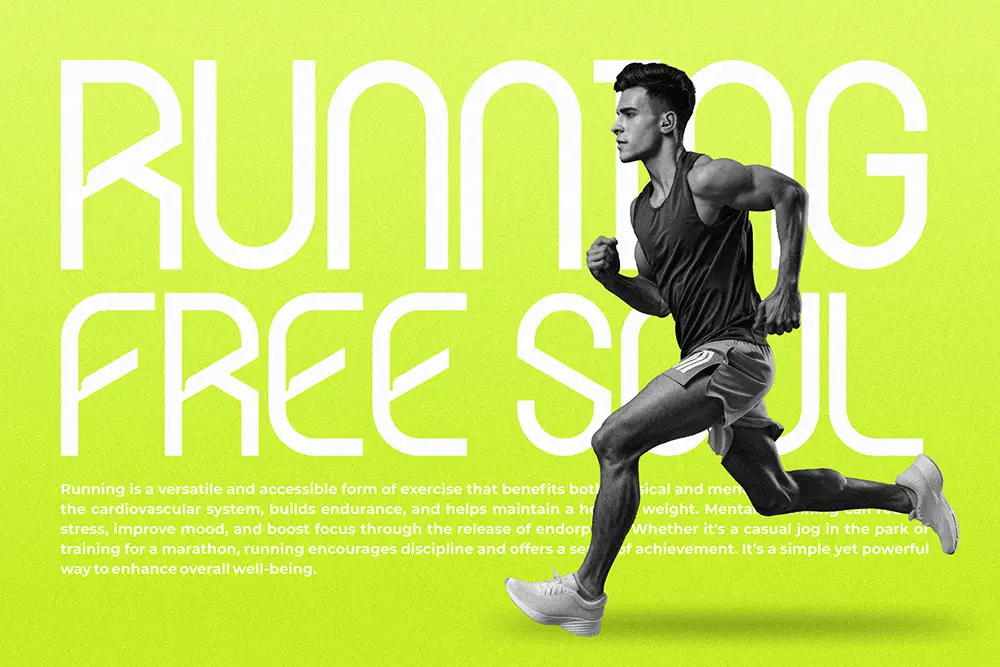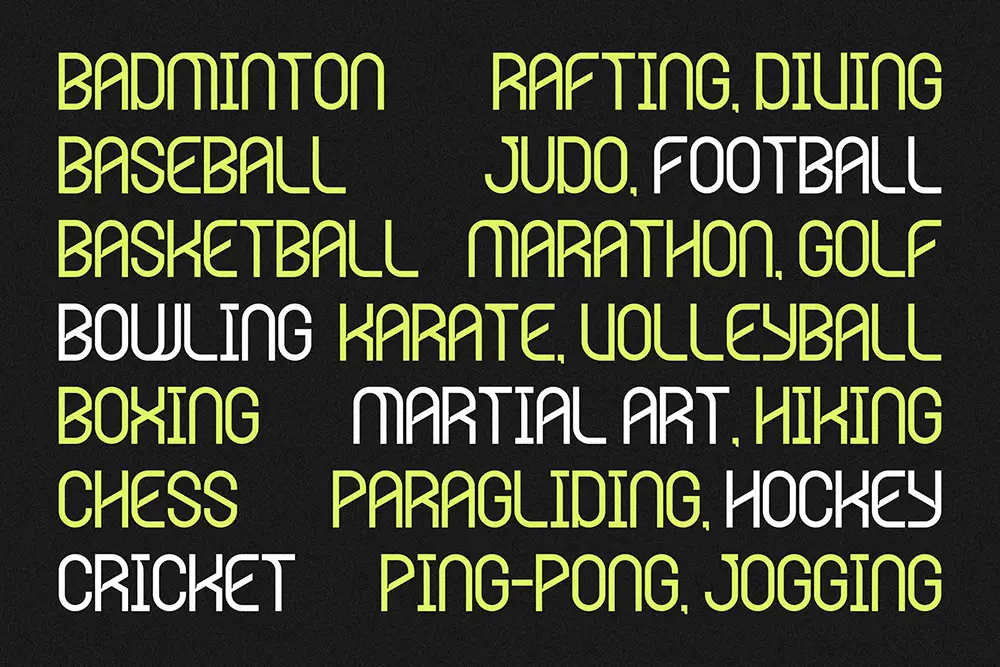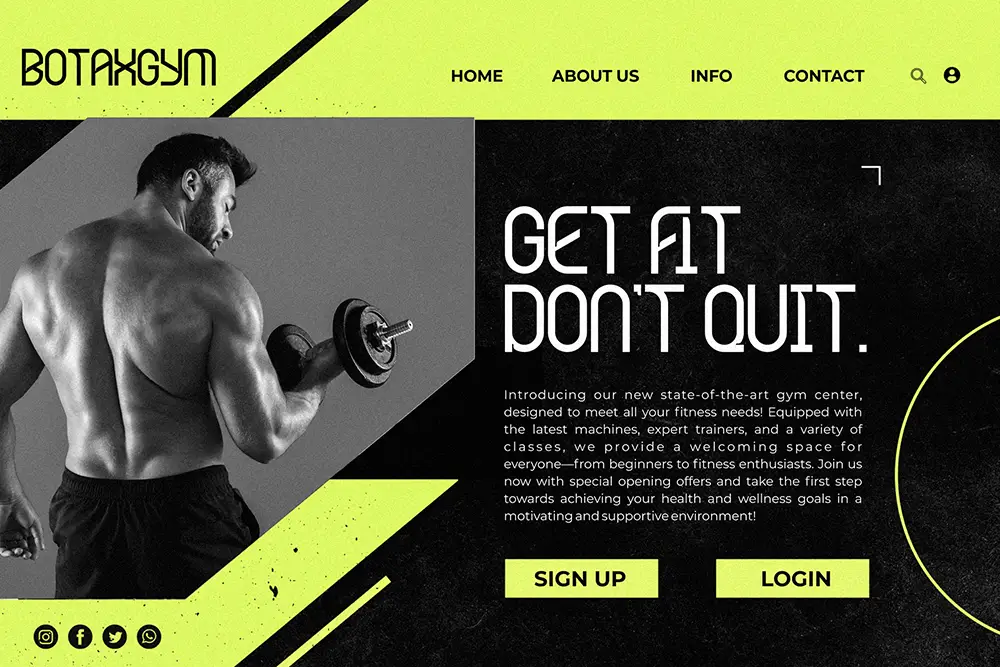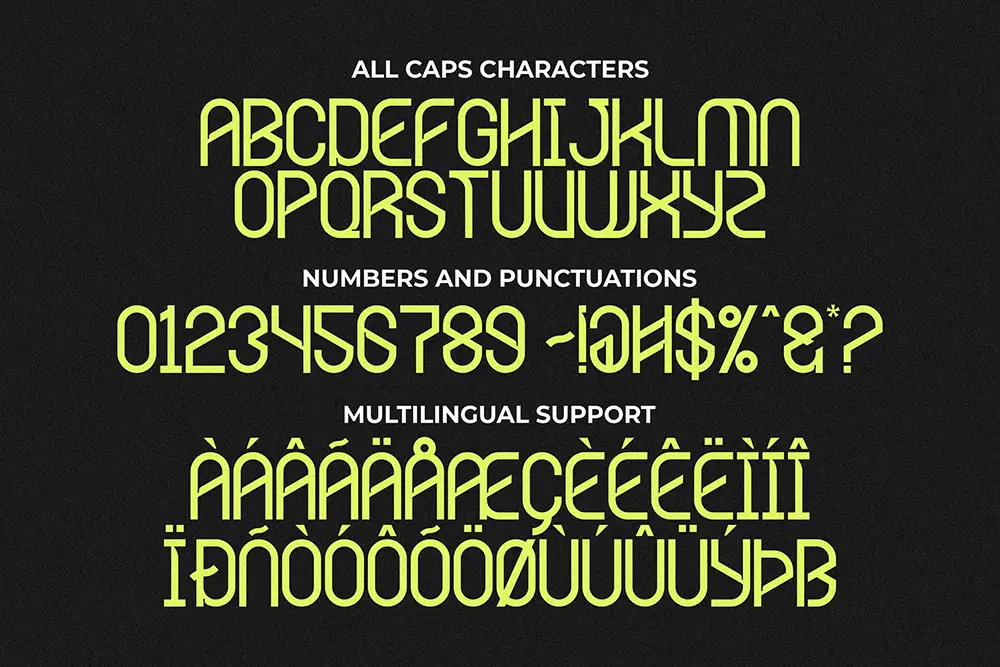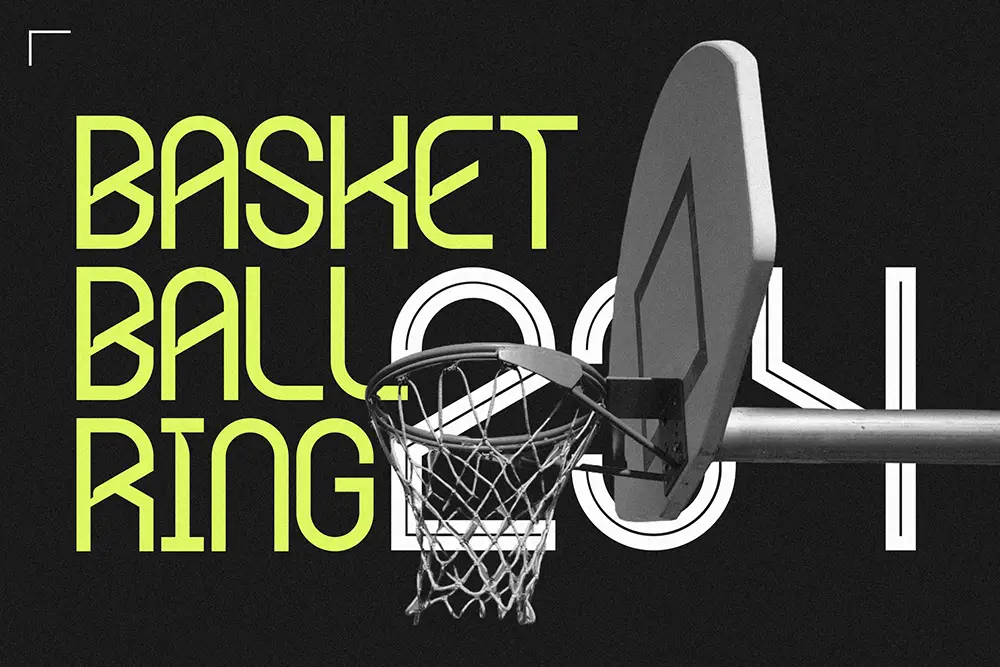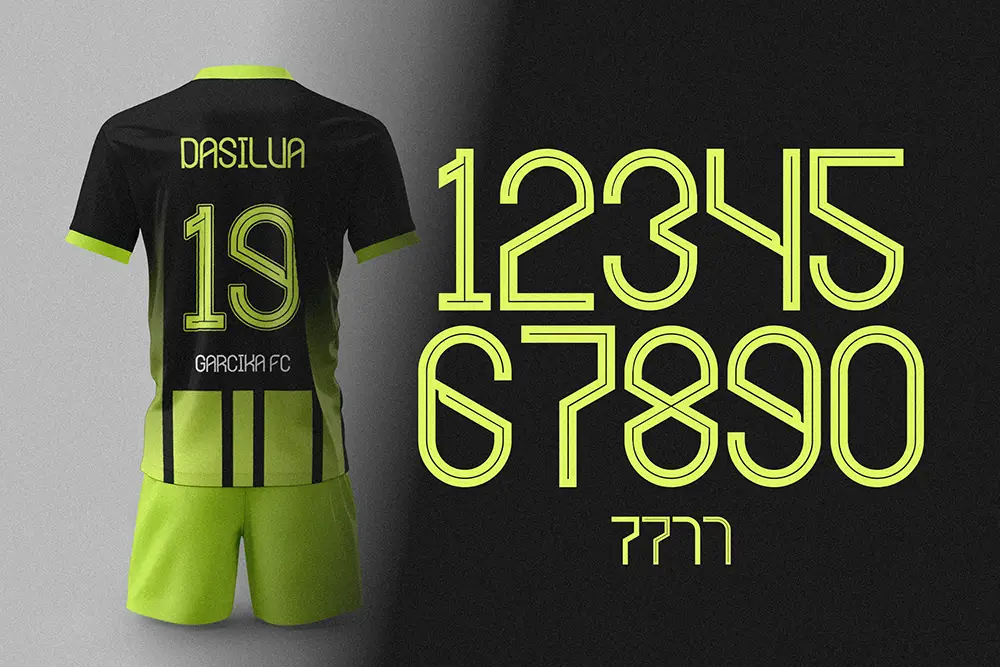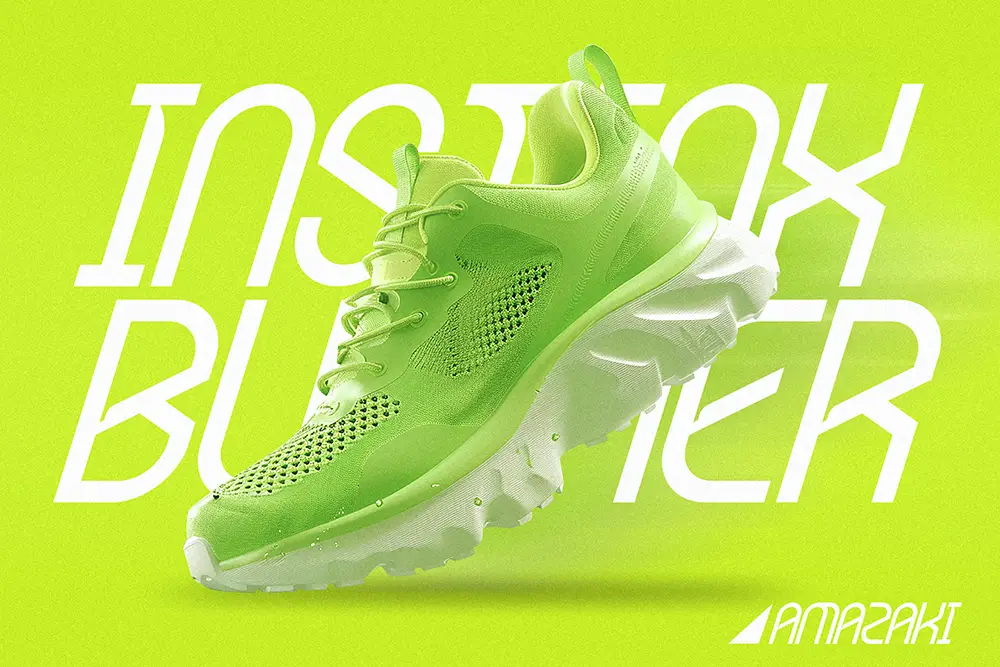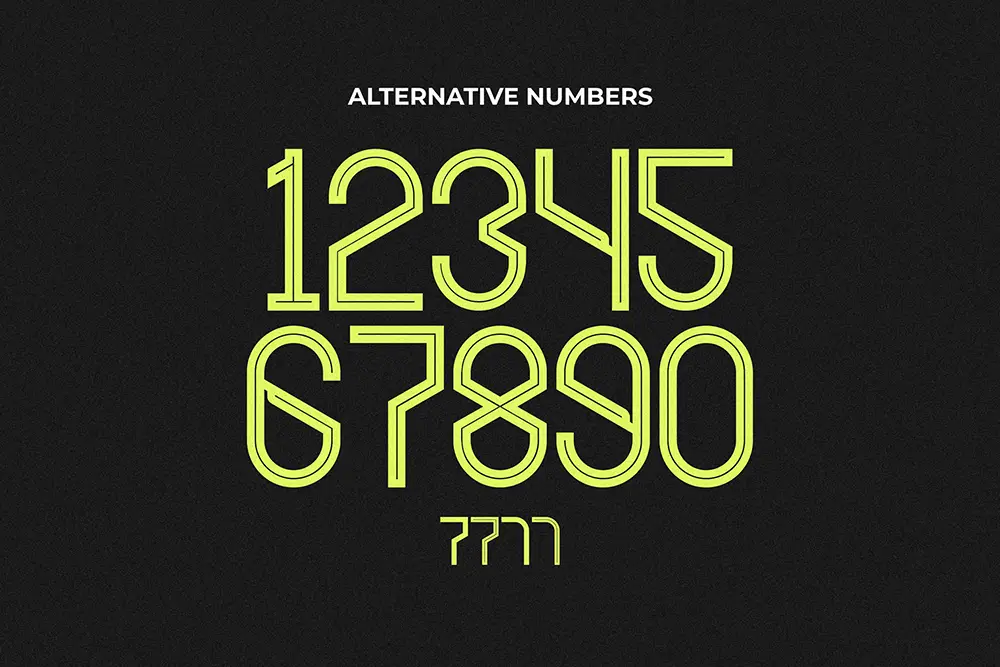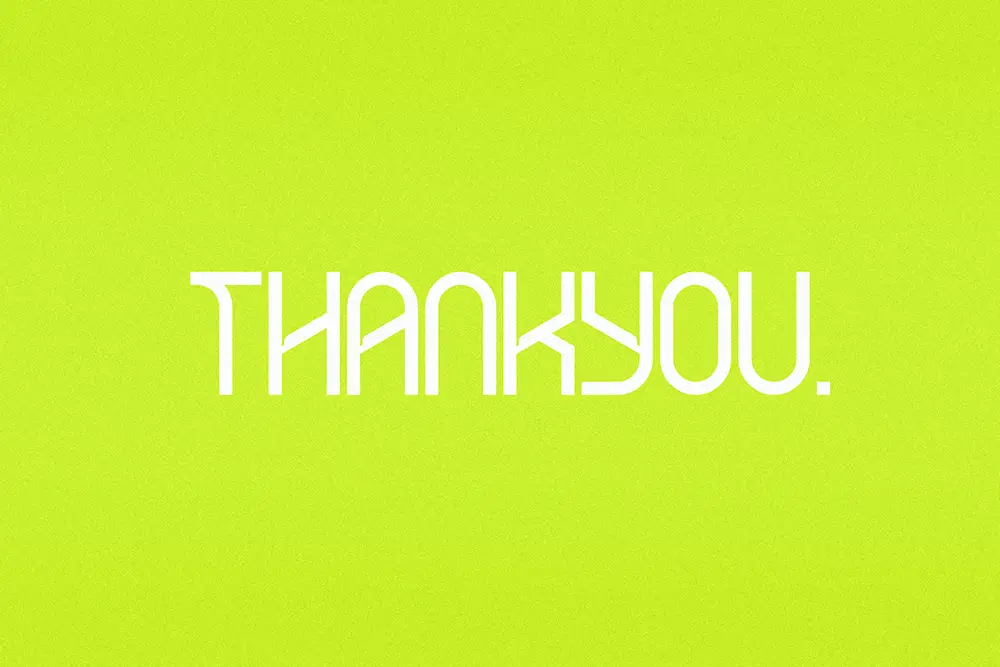
Seventy Five – Sport Display Font for Bold and Energetic Design
Typography is the foundation of impactful design, and nothing communicates power better than a sport display font. Seventy Five – Sport Display Font is designed for designers who need strength, clarity, and energy in every project. Its bold, extended letterforms and dynamic geometry make it perfect for sports branding, logos, posters, and advertising that need to stand out.
This sport display font doesn’t just look strong—it’s engineered to dominate visual spaces. Whether you’re designing a team identity, creating esports visuals, or preparing an energetic campaign, Seventy Five ensures your message is bold, modern, and unforgettable.
Sport Display Font Built for Maximum Impact
Seventy Five is a sport display font that reflects energy and power through every curve and line. Its extended proportions and thick strokes create a commanding presence, making it the ultimate choice for bold headlines, stadium banners, and digital branding.
With multilingual support and stylistic alternates in numbers, this font adapts to global and competitive projects. The versatility of Seventy Five makes it an essential asset for designers aiming for professional, sport-inspired typography.
Key Features of Seventy Five – Sport Display Font
Here are the features that make Seventy Five – Sport Display Font a must-have:
- Uppercase & Lowercase: Full alphabet for diverse applications.
- Multilingual Support: Extended Latin coverage for international branding.
- Alternates in Numbers: Unique stylistic variations for numeric designs.
- Bold Extended Style: Strong letterforms for sport branding and posters.
- Perfect for Display: Thrives in logos, banners, esports, and headlines.
Why Designers Love Seventy Five
Designers around the world trust Seventy Five because it embodies everything a sport display font should offer:
- Bold Presence: Dominates layouts with extended width and sharp design.
- Clarity in Large Scale: Perfectly readable across stadium screens and digital banners.
- Creative Flexibility: Numeric alternates provide variation in branding.
Seventy Five for Logos and Branding
When creating sports logos or team identities, designers need typography that radiates energy. Seventy Five’s sport display font style makes it perfect for athletic logos, corporate sponsorships, and esports branding.
Seventy Five for Posters and Headlines
Bold posters and large headlines require fonts that command attention. As a sport display font, Seventy Five is built for oversized layouts. From tournament banners to music festival promotions, this font guarantees maximum visibility and impact.
Its extended style ensures your typography feels confident and powerful, making it a go-to for designers who need to leave a lasting impression.
Seventy Five in Esports and Digital Media
Esports visuals thrive on speed, strength, and futuristic energy. Seventy Five is the sport display font that translates perfectly into digital branding—Twitch overlays, YouTube thumbnails, and event graphics all benefit from its commanding look.
With numeric alternates, designers can add unique stylization to scores, dates, or event numbers, enhancing the overall design aesthetic. Its multilingual support ensures it’s ready for international esports audiences.
- Font Name: Seventy Five – Sport Display Font
- Character Set: Uppercase, Lowercase, Numbers, Punctuation, Alternates in Numbers
- Multilingual Support: Yes
- Category: Sport Display Font
- Best Uses: Logos, Posters, Esports, Branding, Digital Media, Event Campaigns
Font Pairing Suggestions
Seventy Five works even better when paired with complementary fonts:
- Roadpunks Handbrush Typeface – adds raw, brushstroke intensity to balance Seventy Five’s structure.
- Break Fridays Bold Script – introduces dynamic, script-style movement for energetic designs.
Together, these combinations make Seventy Five an adaptable sport display font for both print and digital campaigns.